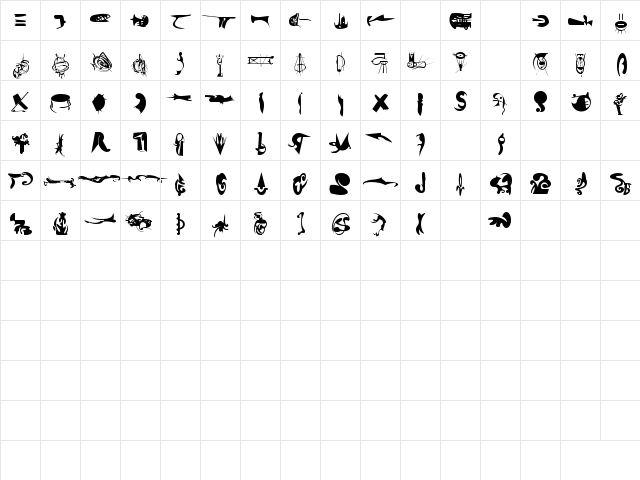
FellaToo Regular
Design Context for FellaToo Typeface
FellaToo is a composed and adaptable typeface that performs quietly and consistently across a wide range of design contexts.